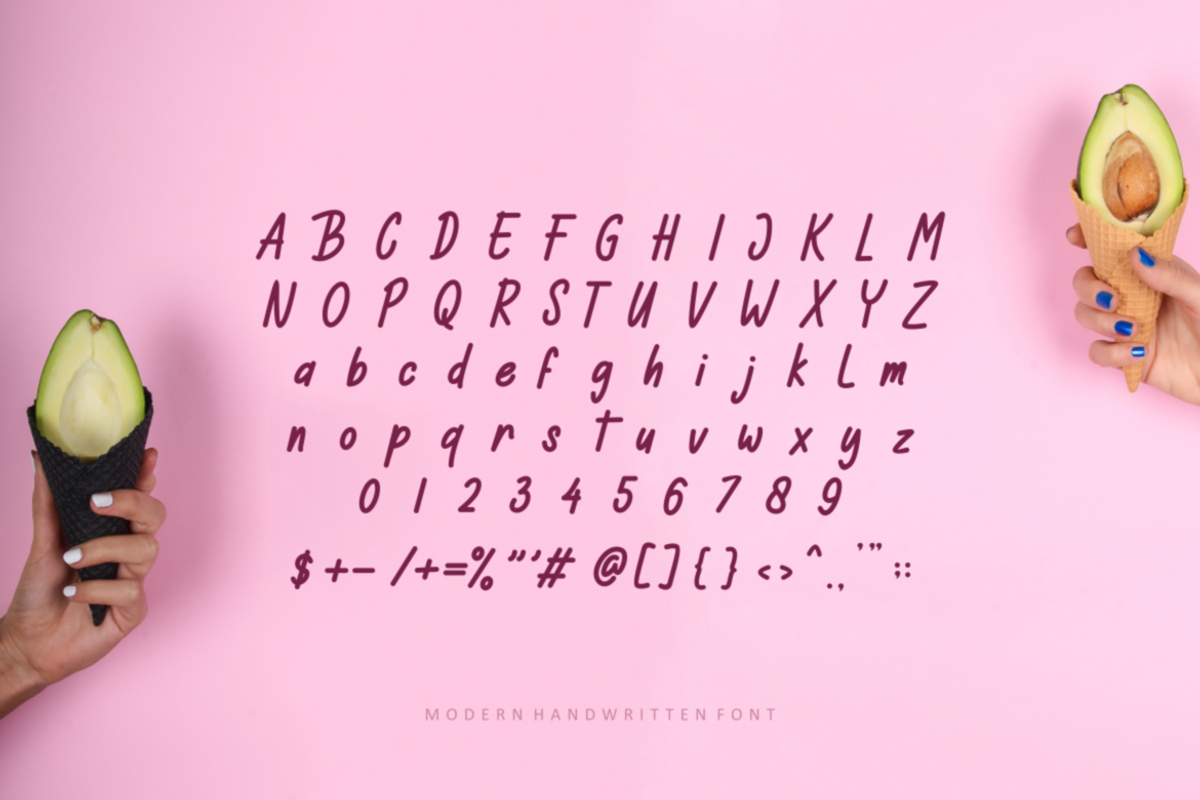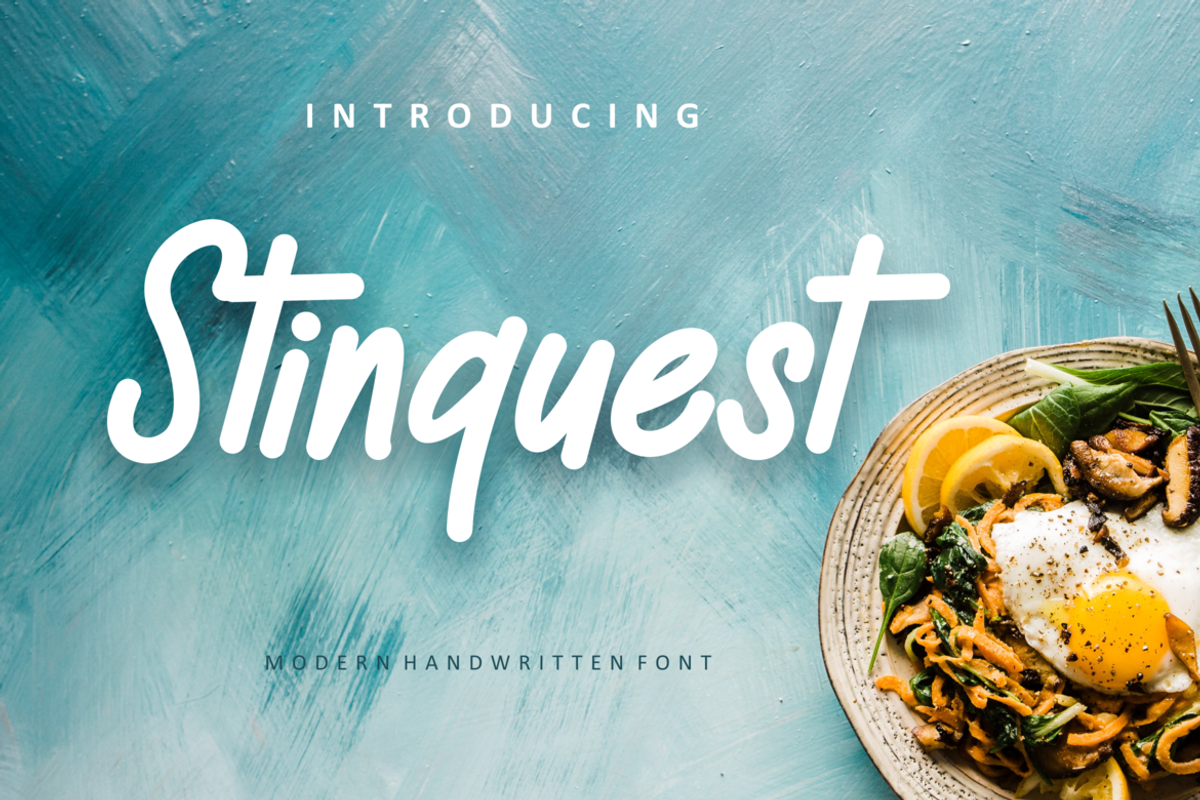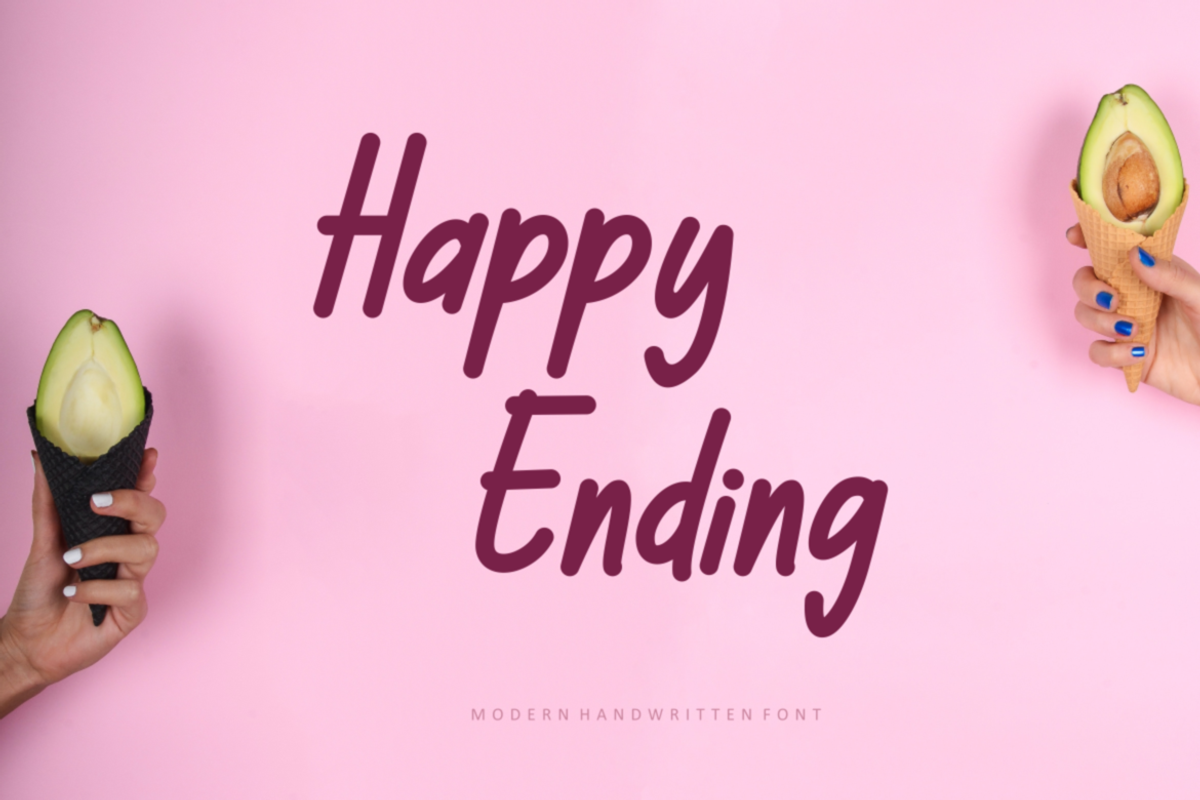
Stinquest
Introducing our new product Stinquest Font - Modern Font
Stinquest Font - Modern Font is a bold and authentic display font. The font is suitable for any branding project like logo, t-shirt printing, esport, and many more. outstanding in a wide range of contexts.